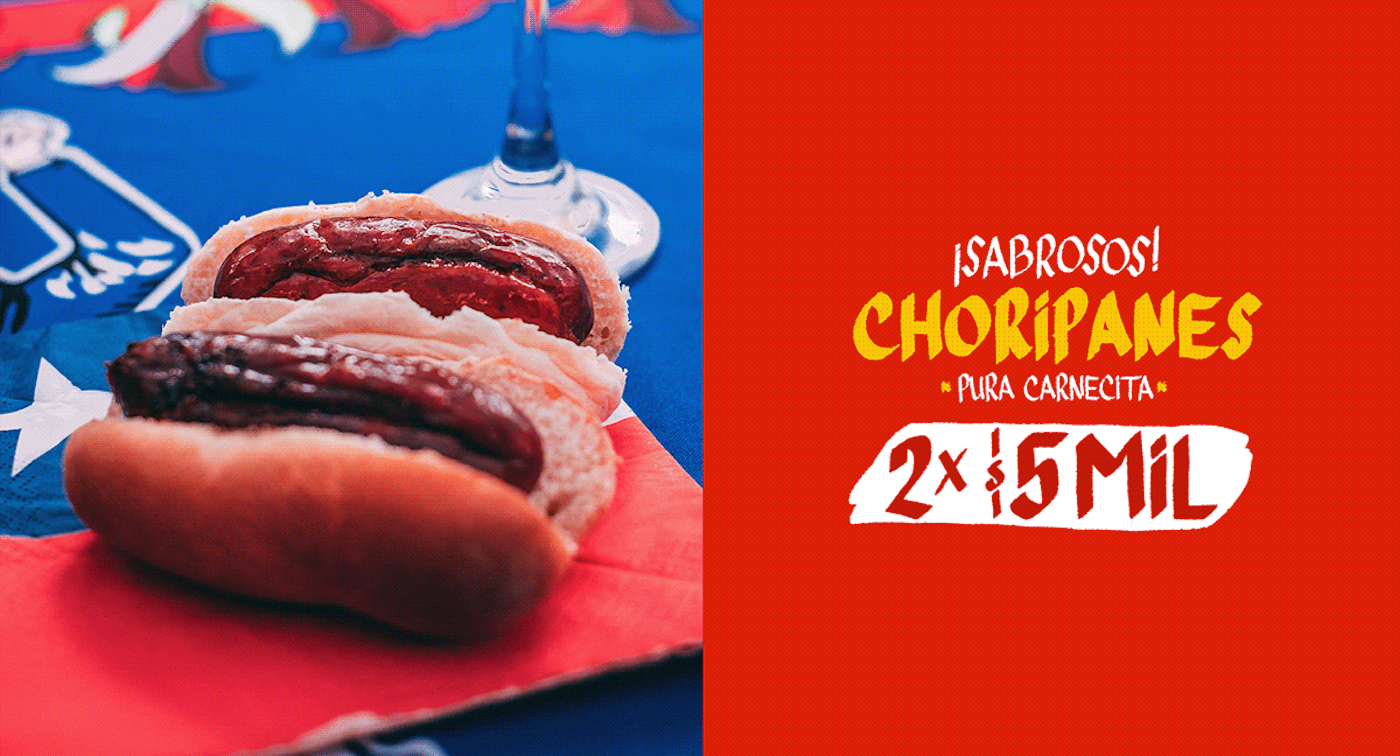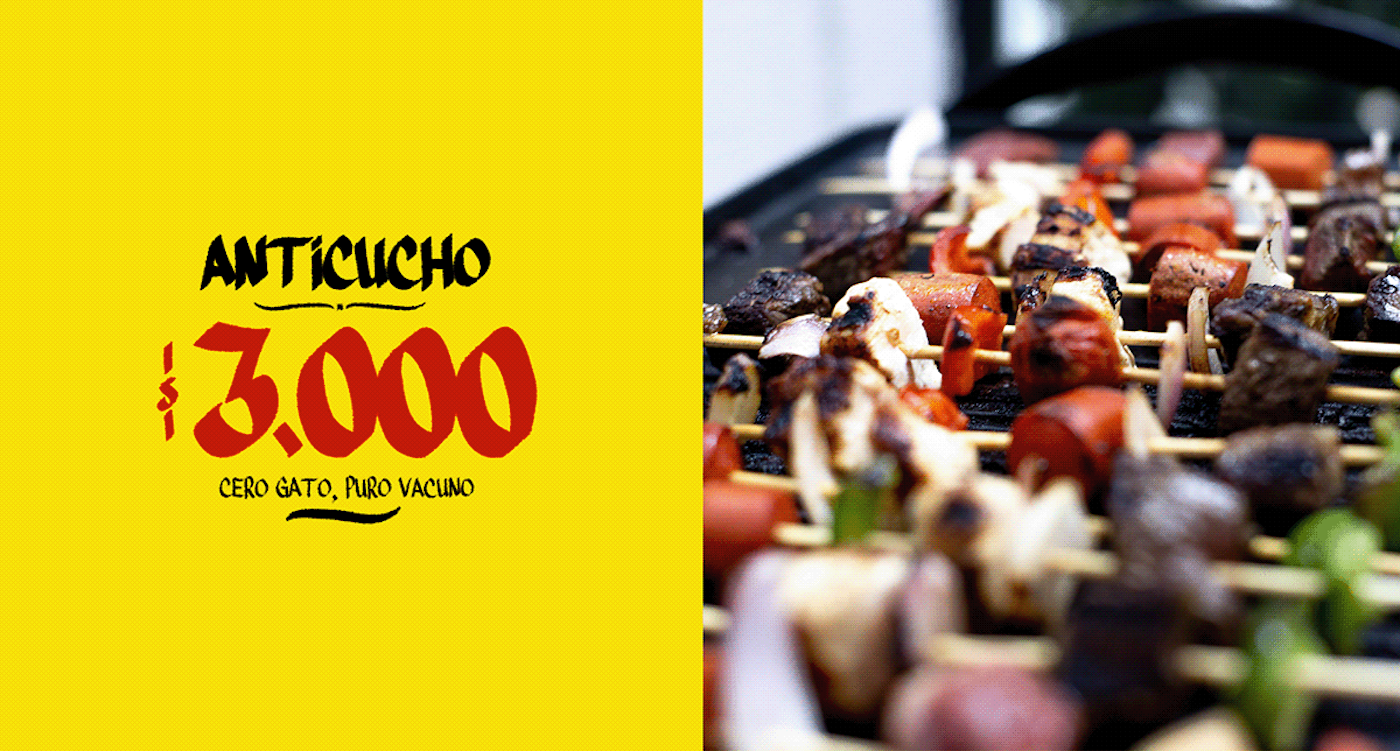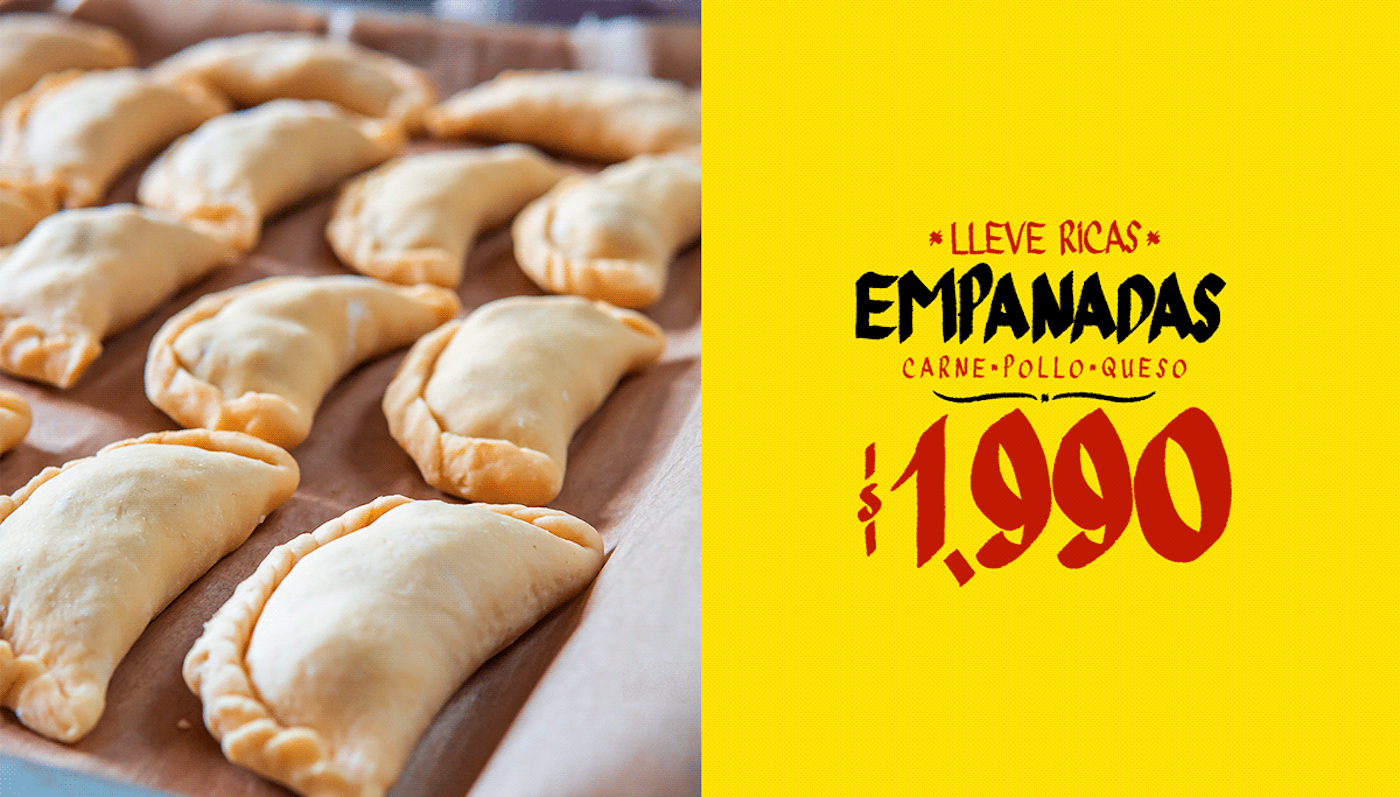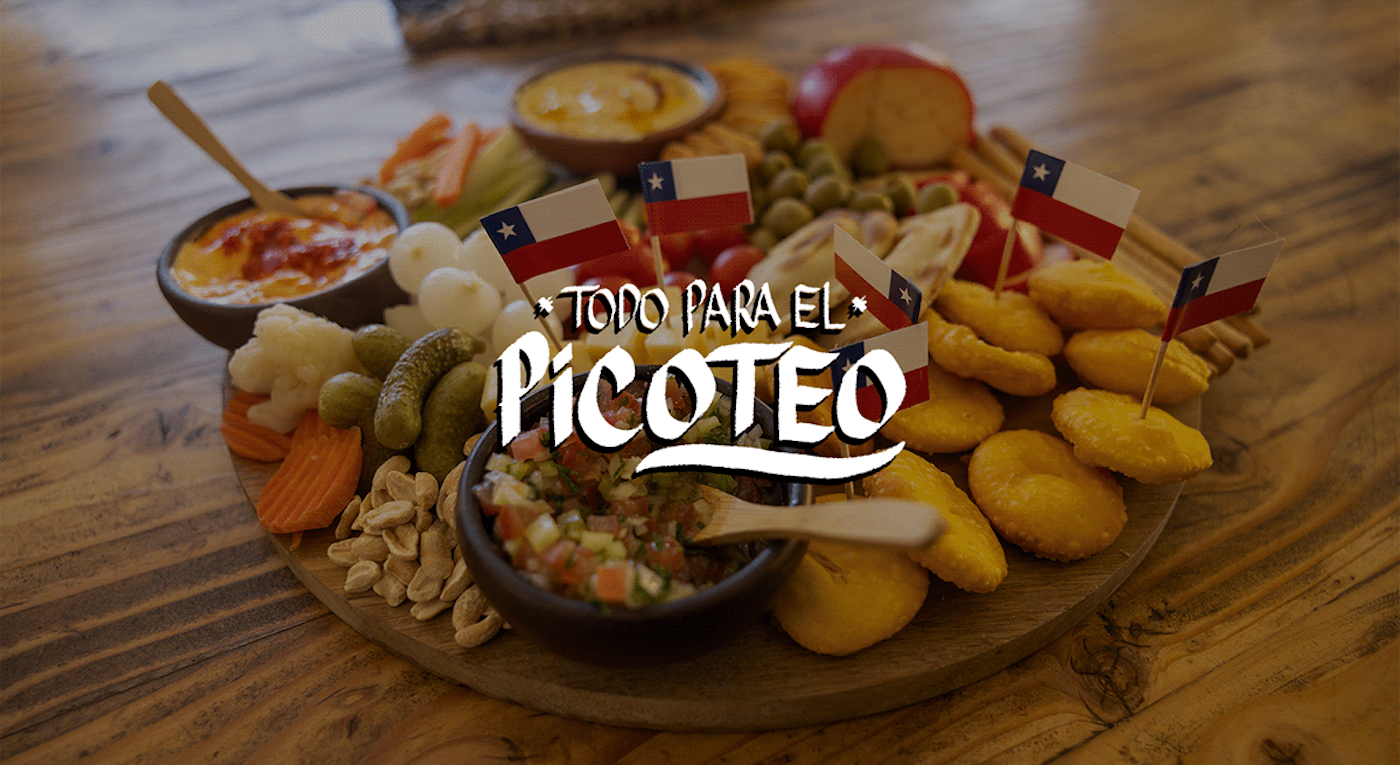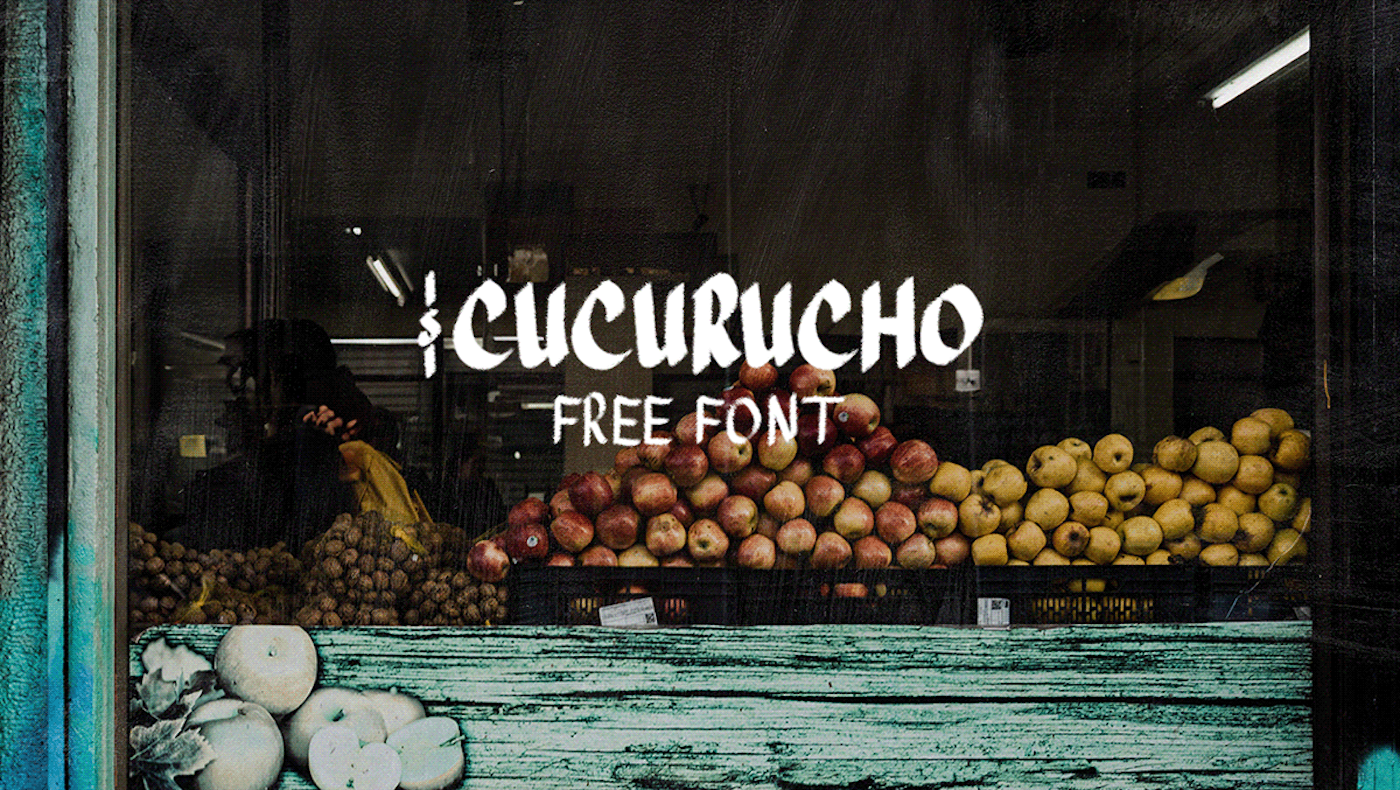
Cucurucho is a free hand drawn font created by Gonzalo Gallardo. This classically styled font includes 2 weights within the same file using upper & lowercase characters.